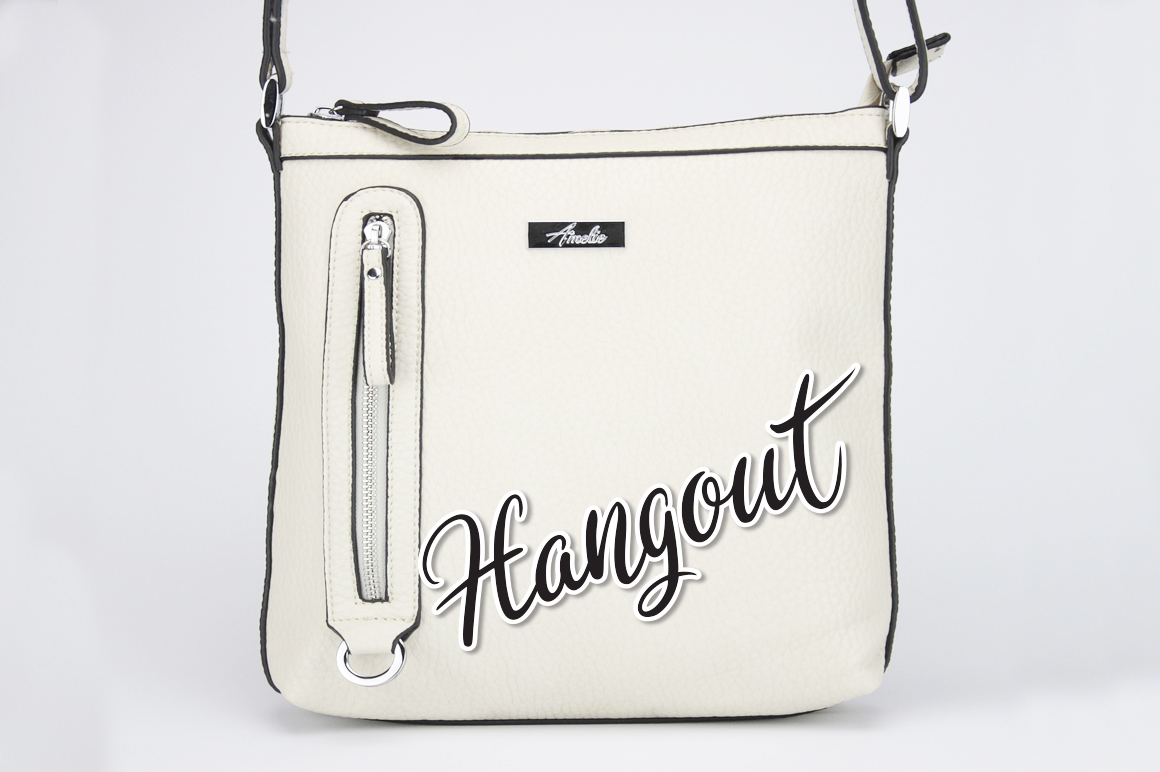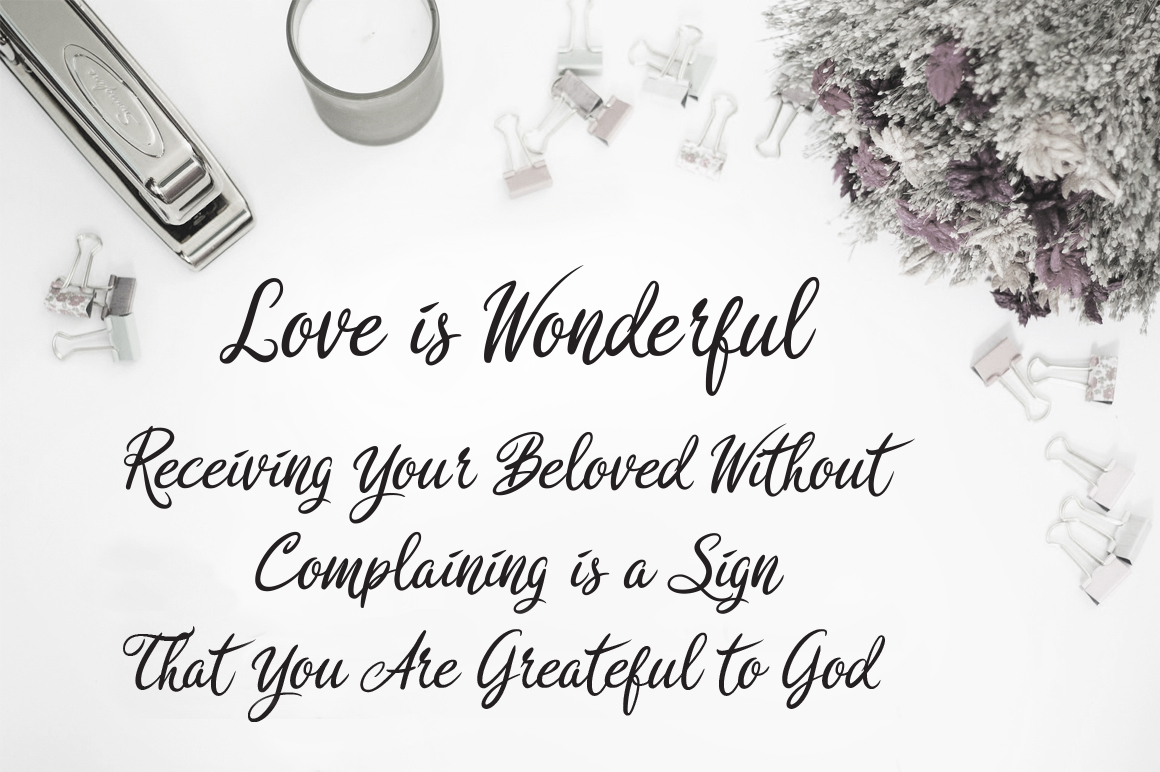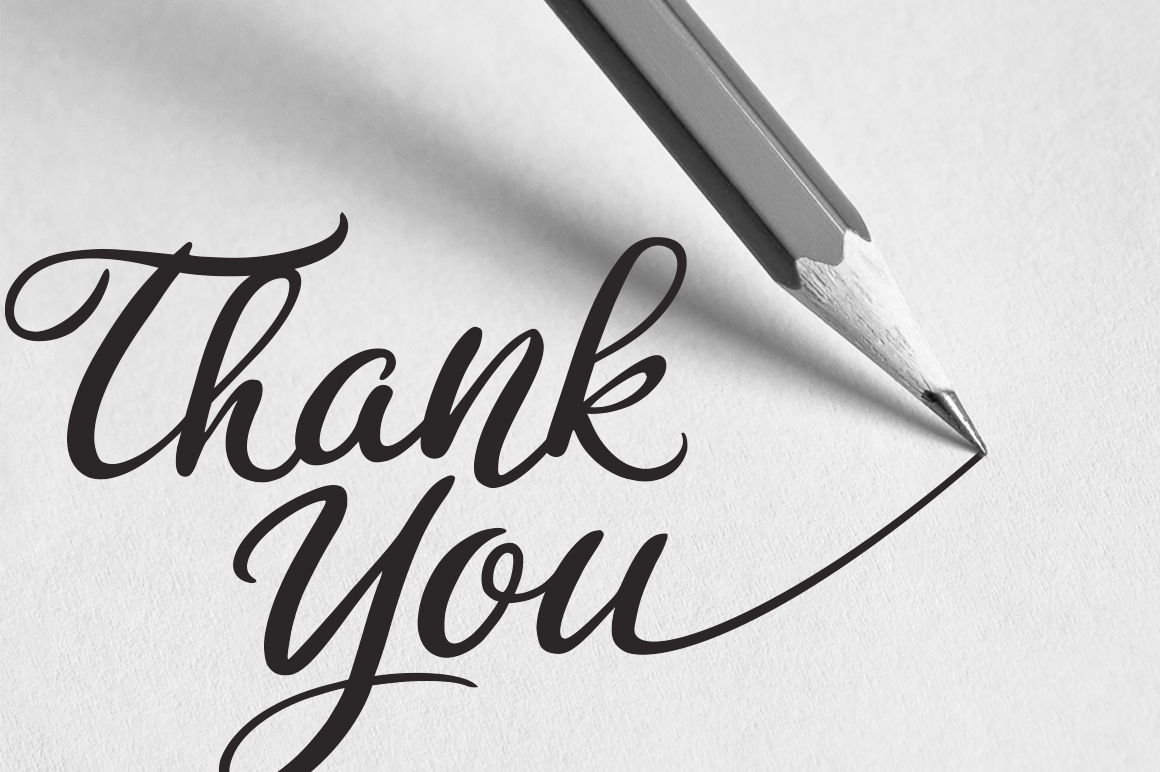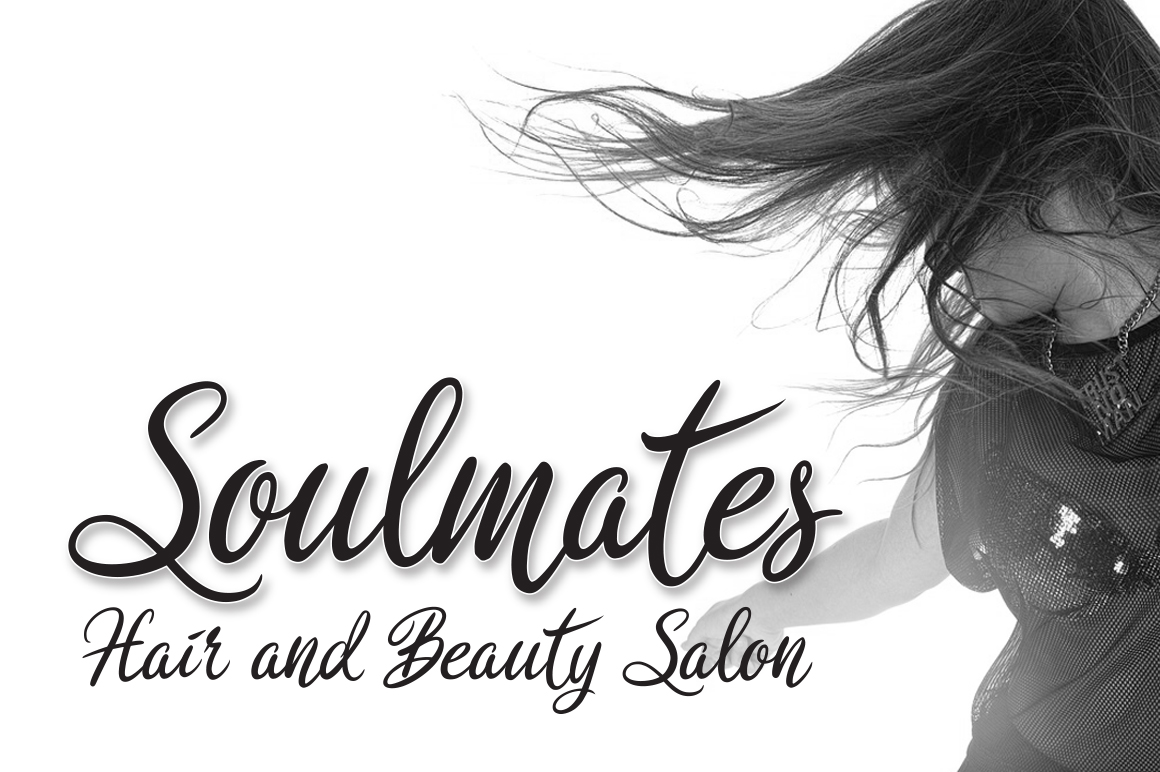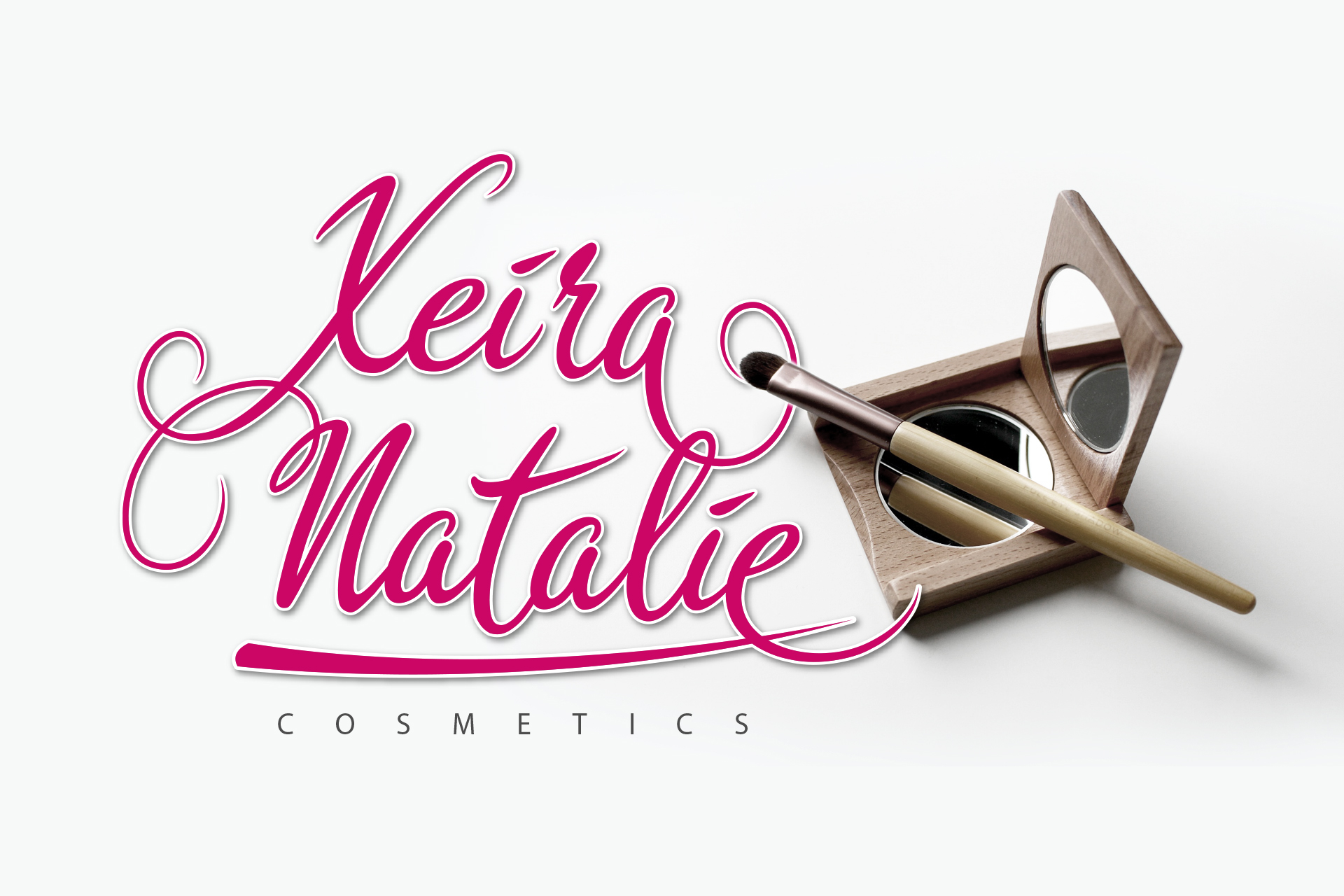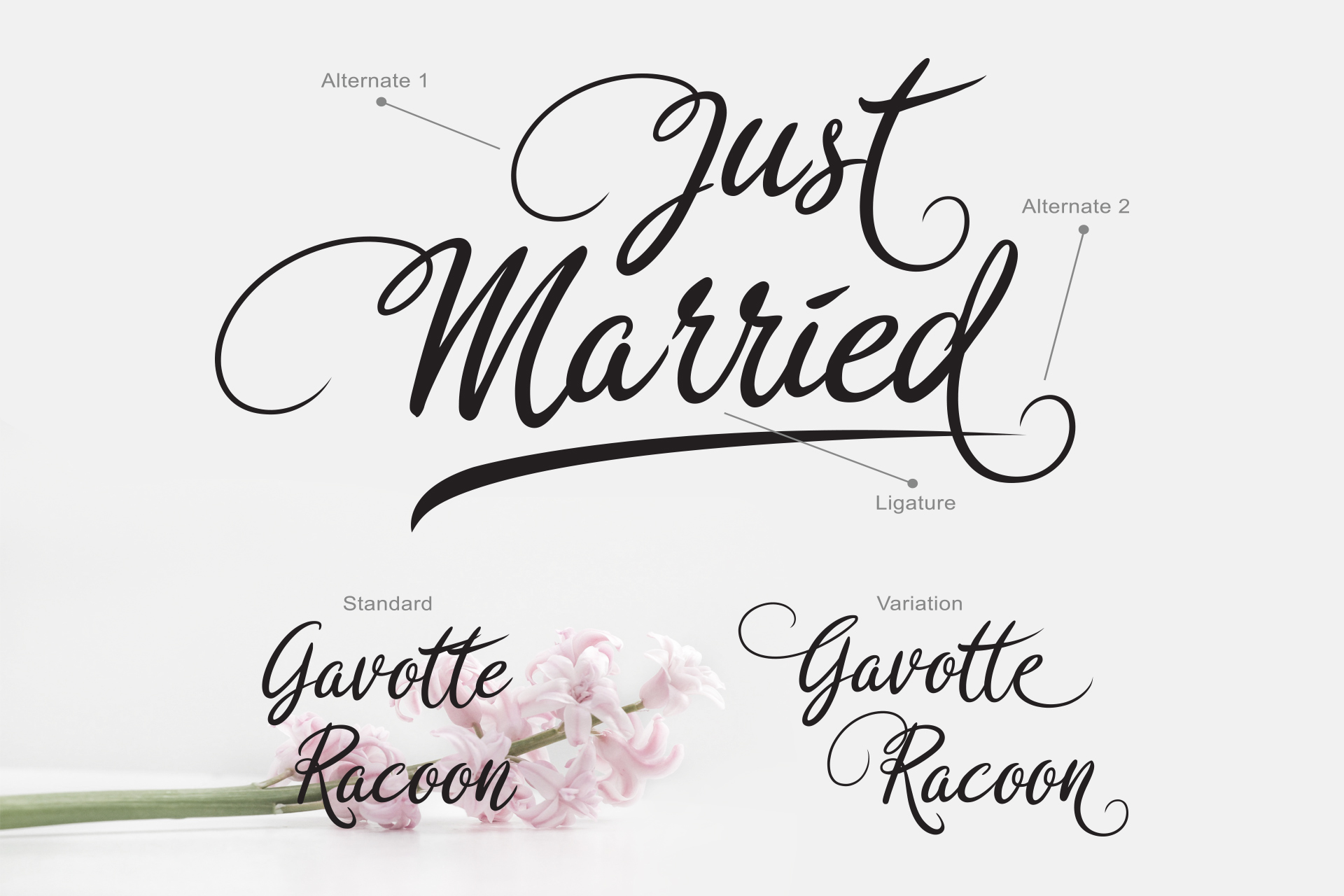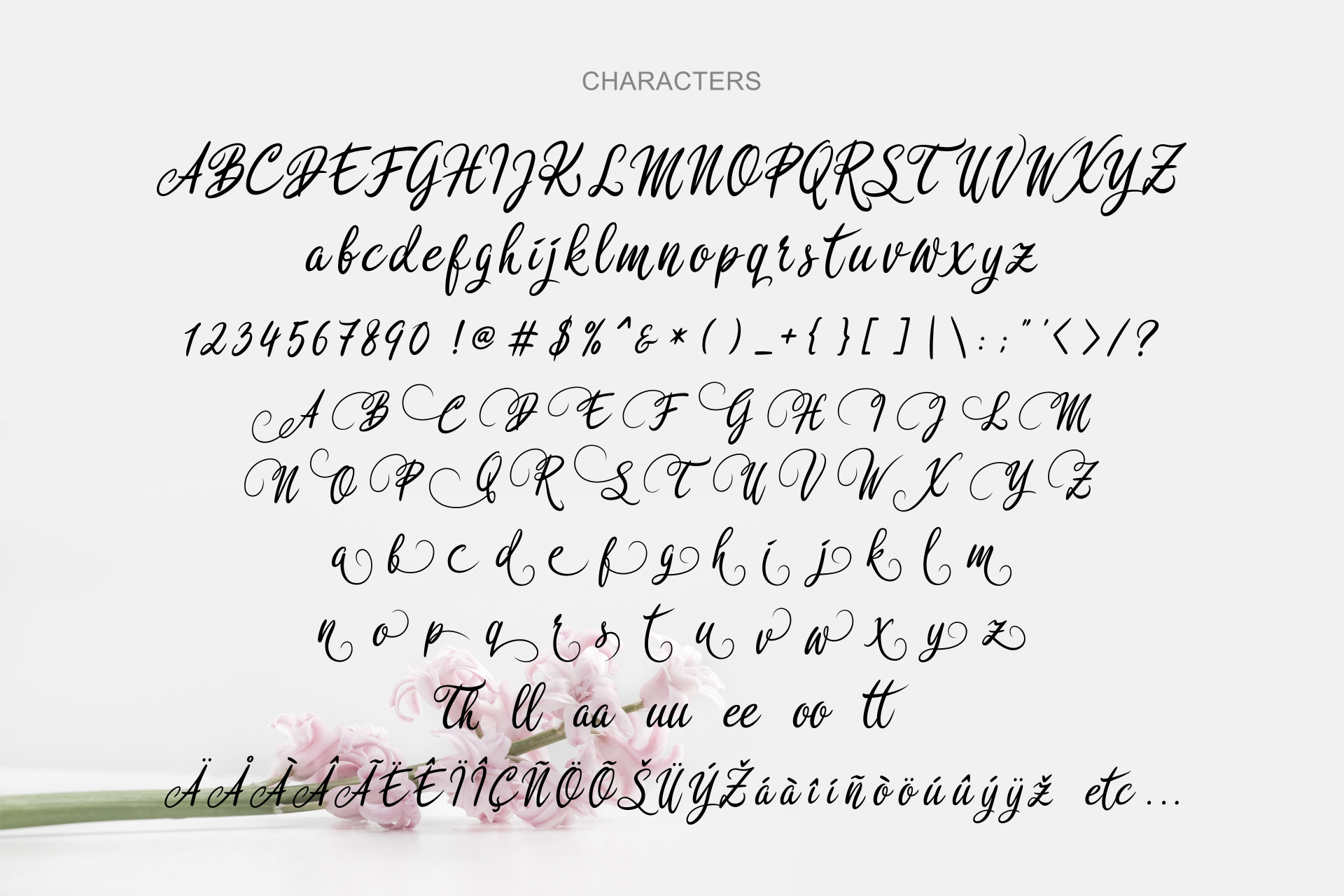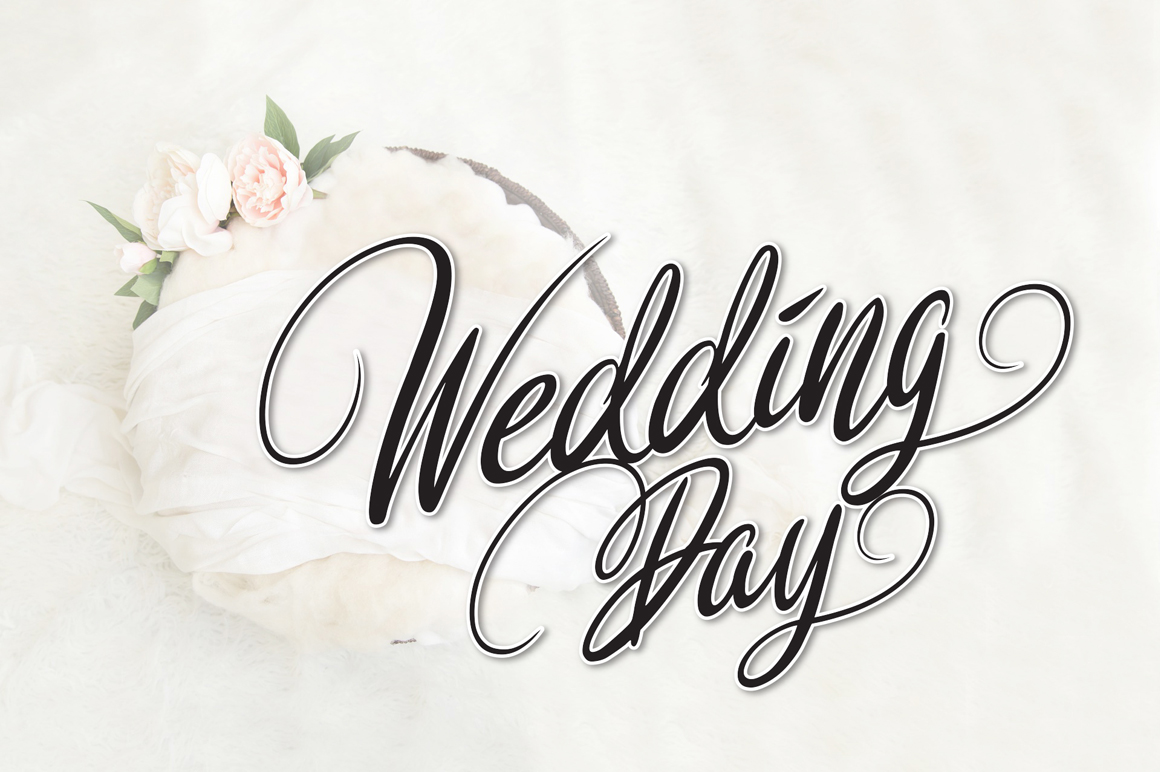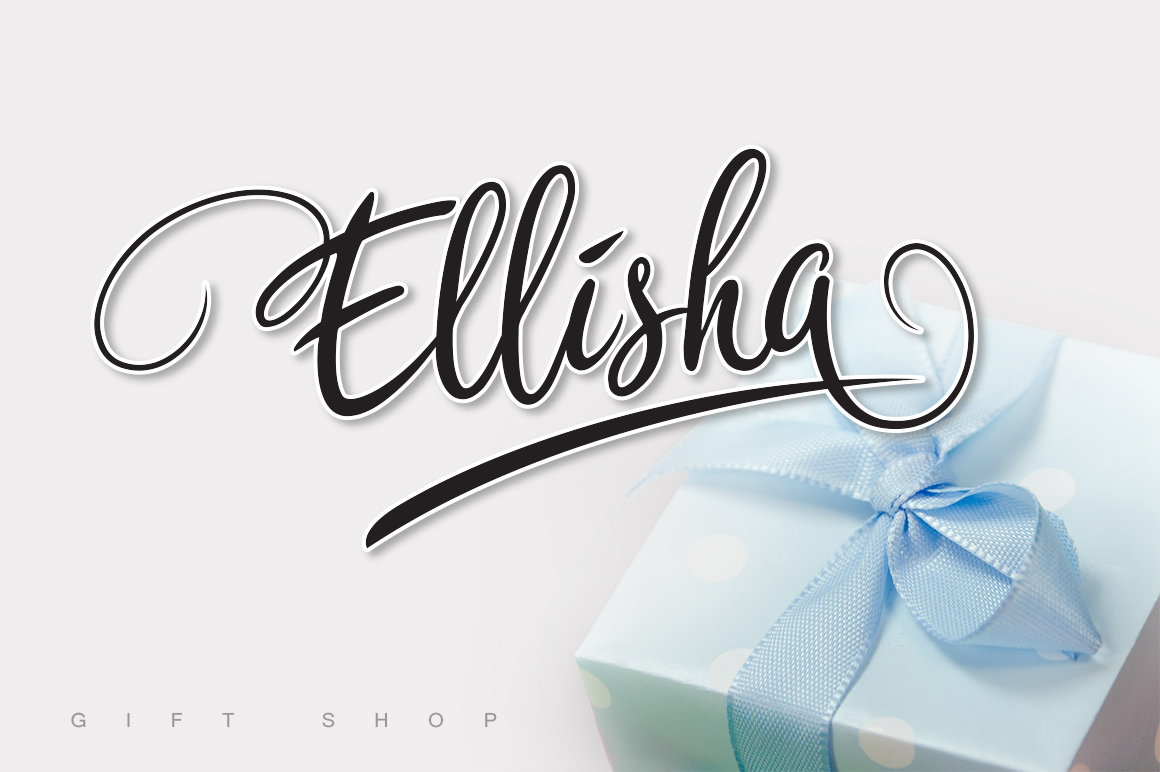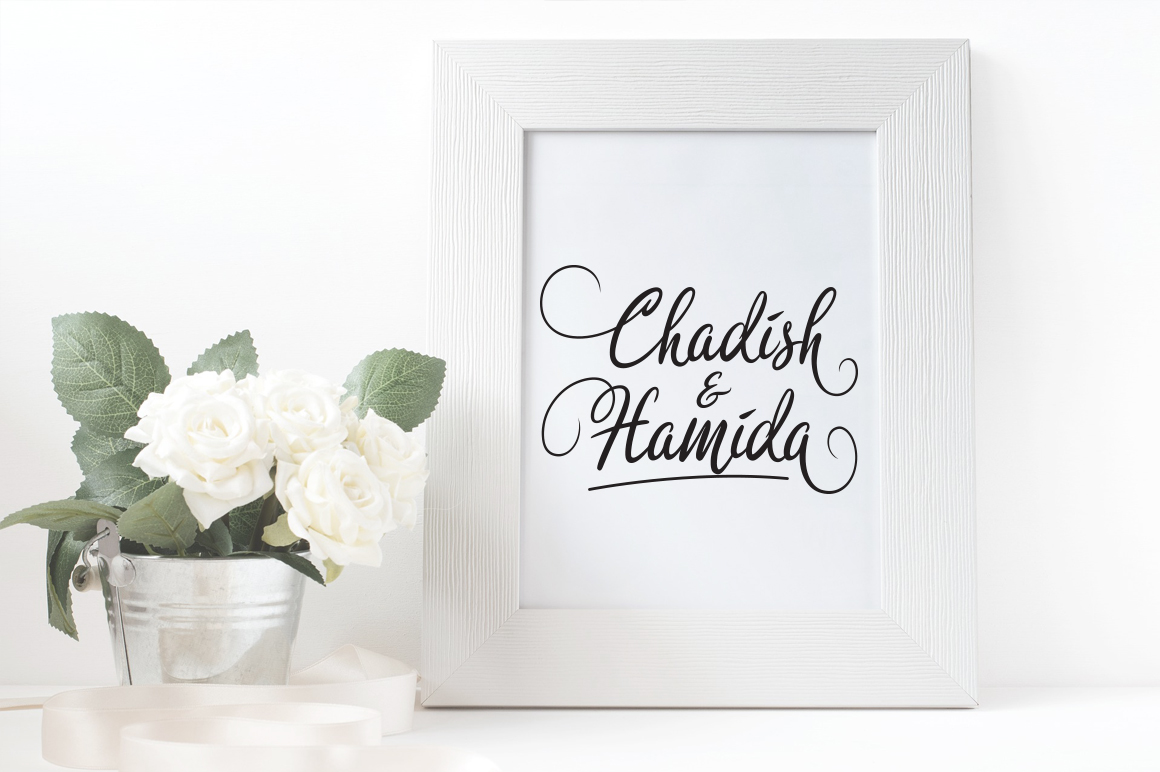
HomeScript FontsRosedita Font Script Fonts Rosedita Font FacebookXPinterestWhatsApp Rosedita Font Poster 2 Rosedita Font Poster 3 Rosedita Font Poster 4 Rosedita Font Poster 5 Rosedita Font Poster 6 Rosedita Font Poster 7 Rosedita Font Poster 8 Rosedita Font Poster 9 Rosedita Font Poster 10 Rosedita Font Poster 11 Rosedita Font Poster 12 About Rosedita Font The Rosedita Script is a handwritten calligraphy font that works great in many different types of projects. DOWNLOAD ON CREATIVE FABRICAThis font is sold and delivered by Creative Fabrica. Font Canyon may earn a commission if you buy through this link. People also explored Snail Slow Historikal Font Maffelyns Font Garanx Font Belisha Font Razelvolte Font Signatture Fonty Font Destra Ericka Font 313 0 TagsRosedita Font Previous articleDelightful Dog FontNext articleSweet Jasmine Font LEAVE A REPLY Cancel reply Comment: Please enter your comment! Name:* Please enter your name here Email:* You have entered an incorrect email address! Please enter your email address here Website: Save my name, email, and website in this browser for the next time I comment. Personal Use Free Bettari Personal Use Free Read more about this font Samureix Personal Use Free Read more about this font Rollayka Personal Use Free Read more about this font Bally Girl Personal Use Free Read more about this font BLOG Modern Sans-Serif Fonts That Brands Love in 2025 In 2025, modern sans-serif fonts remain a top choice for brands looking to project clarity, professionalism, and... Free Fonts Risk: Why Free Fonts Can Be Dangerous for Designers Free vs Paid Fonts: Why Investing in Premium Fonts Is Worth It Exploring Font Trends